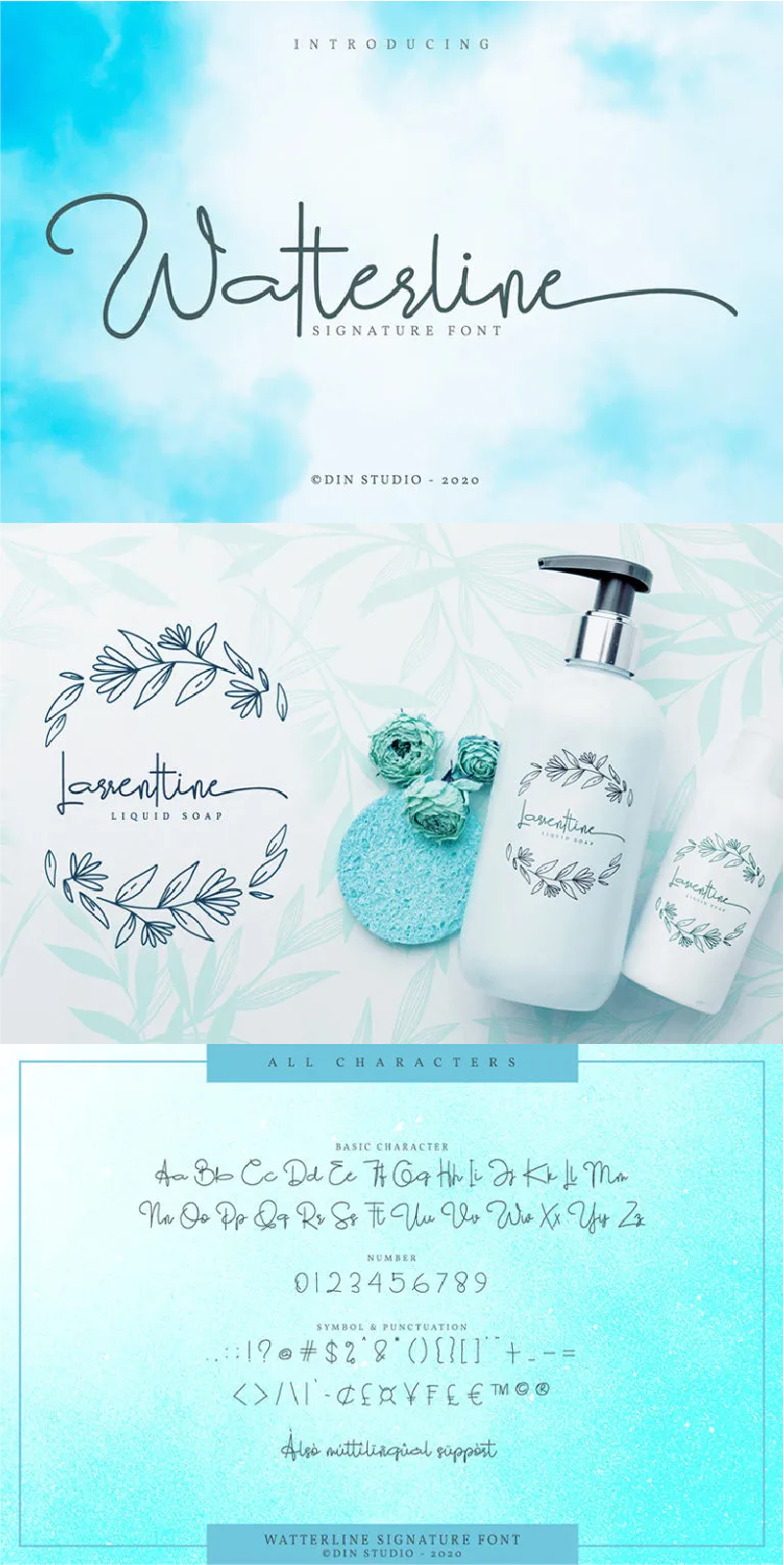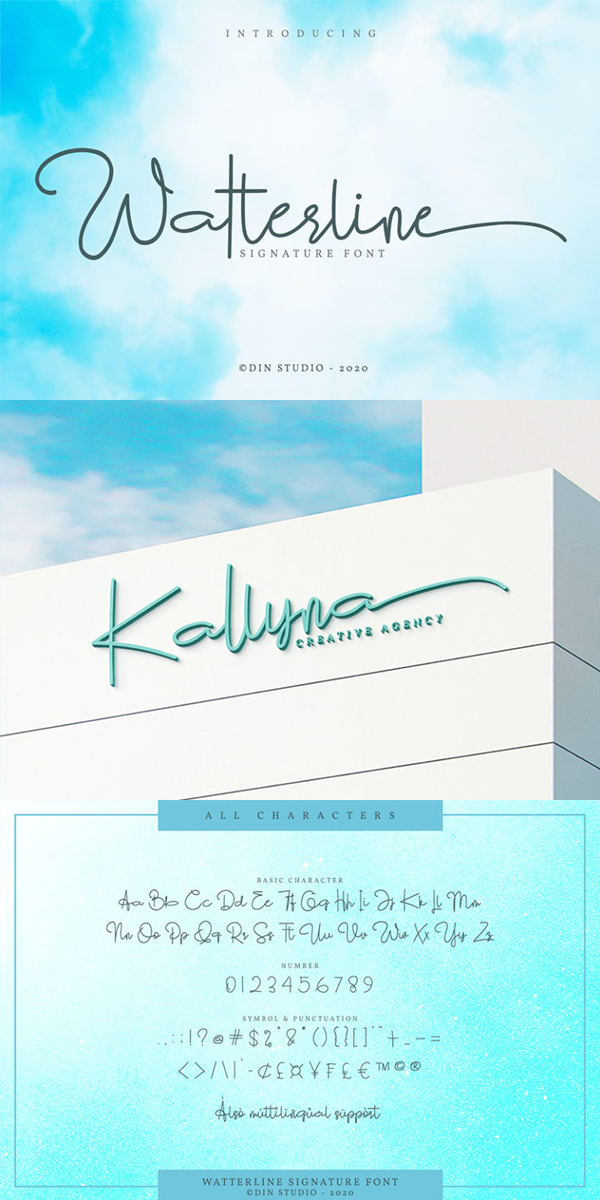
Watterline Font
About Watterline
Watterline is an elegant signature font. It brings a modern and attractive typeface. Made for any professional project branding. It is the best for logos, branding, wedding and quotes. See the previews above to get some inspiration on how you can use them. Happy Designing!
– Stylistic Set
– Beautiful Ligatures